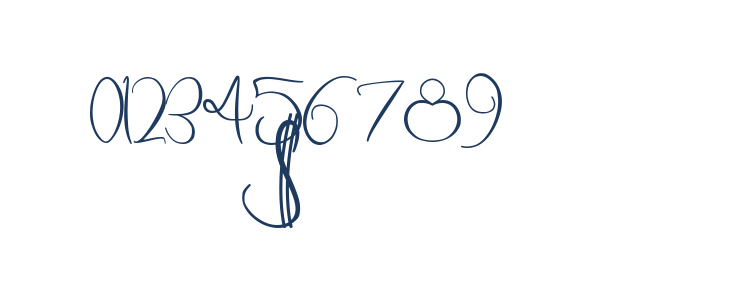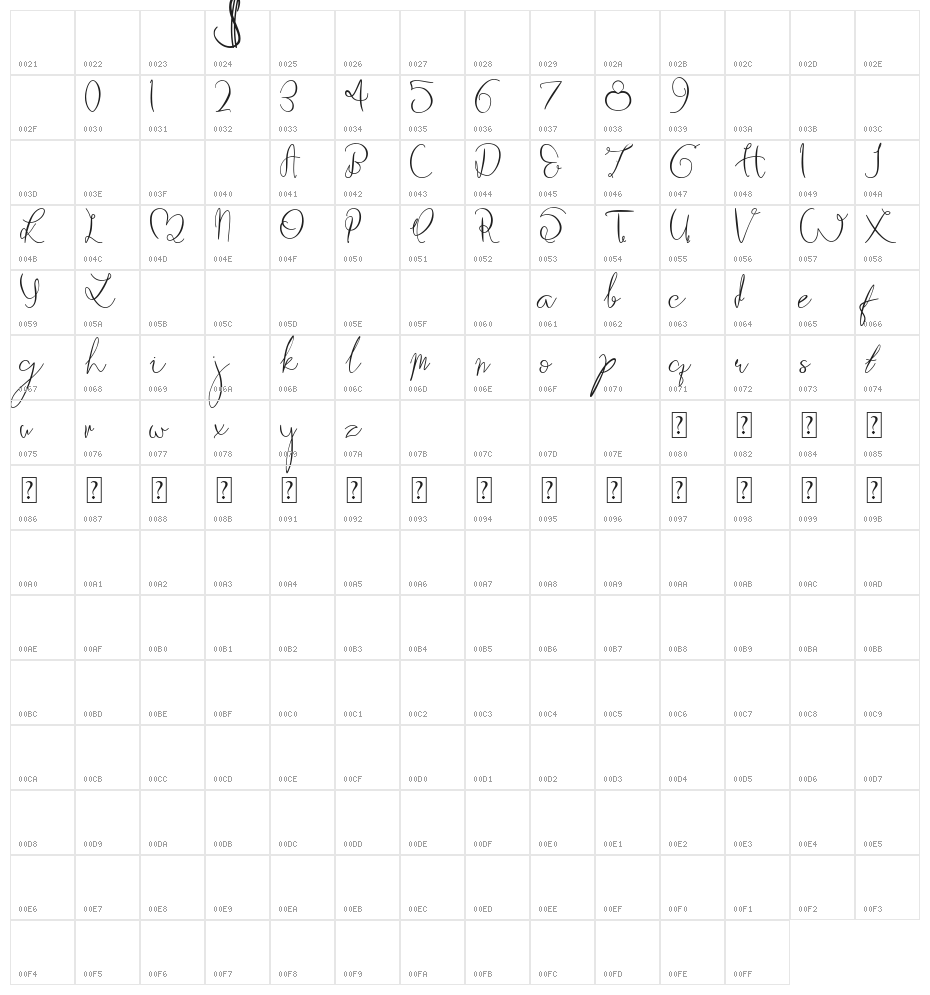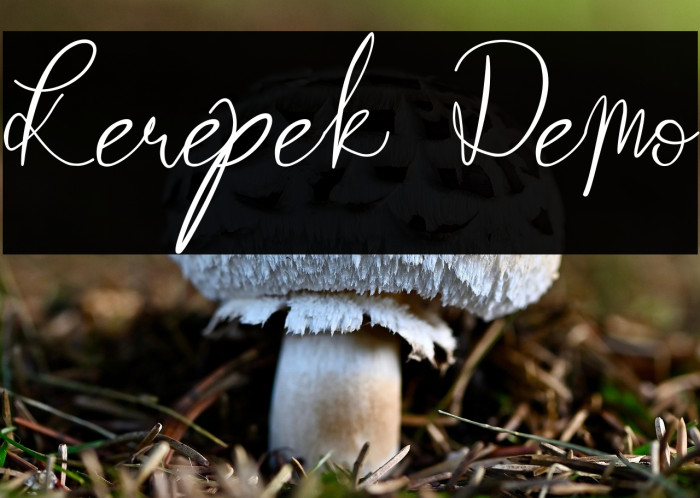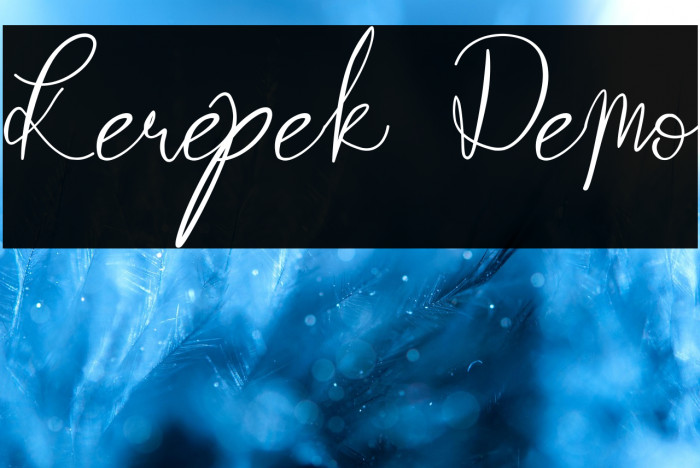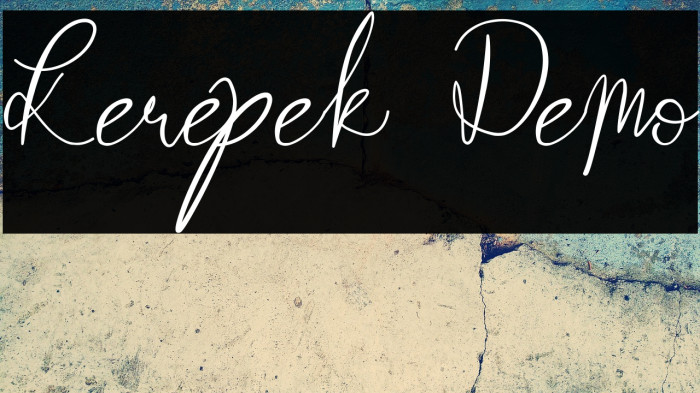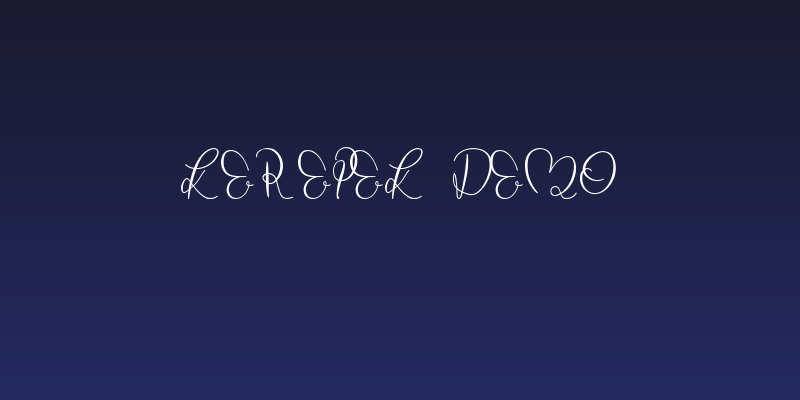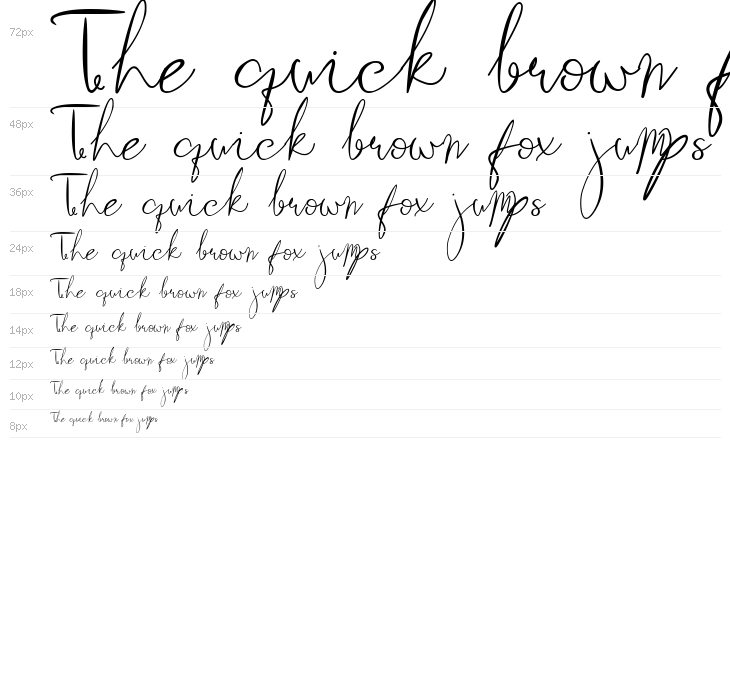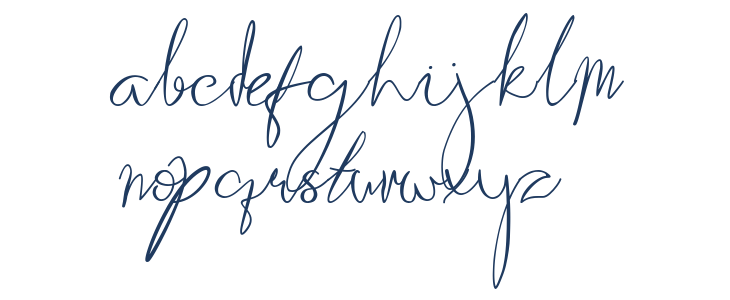
Kerepek Demo Font
Kerepek Demo Description
This font features an elegant and flowing script style, characterized by its intricate loops and swirls. The uppercase letters are particularly ornate, with each character exhibiting unique flourishes that add a touch of sophistication. The lowercase letters maintain a consistent style, with elongated ascenders and descenders that enhance the font's graceful appearance. The numerals are equally stylized, ensuring a cohesive look across all characters. Special characters like the dollar sign and ampersand are designed with the same attention to detail, making them stand out. This font is perfect for projects that require a touch of elegance and creativity.
| Use Case | Logos, Invitations, Artistic Designs |
| Proposed Projects | Ideal for wedding invitations, luxury branding, and artistic projects. |